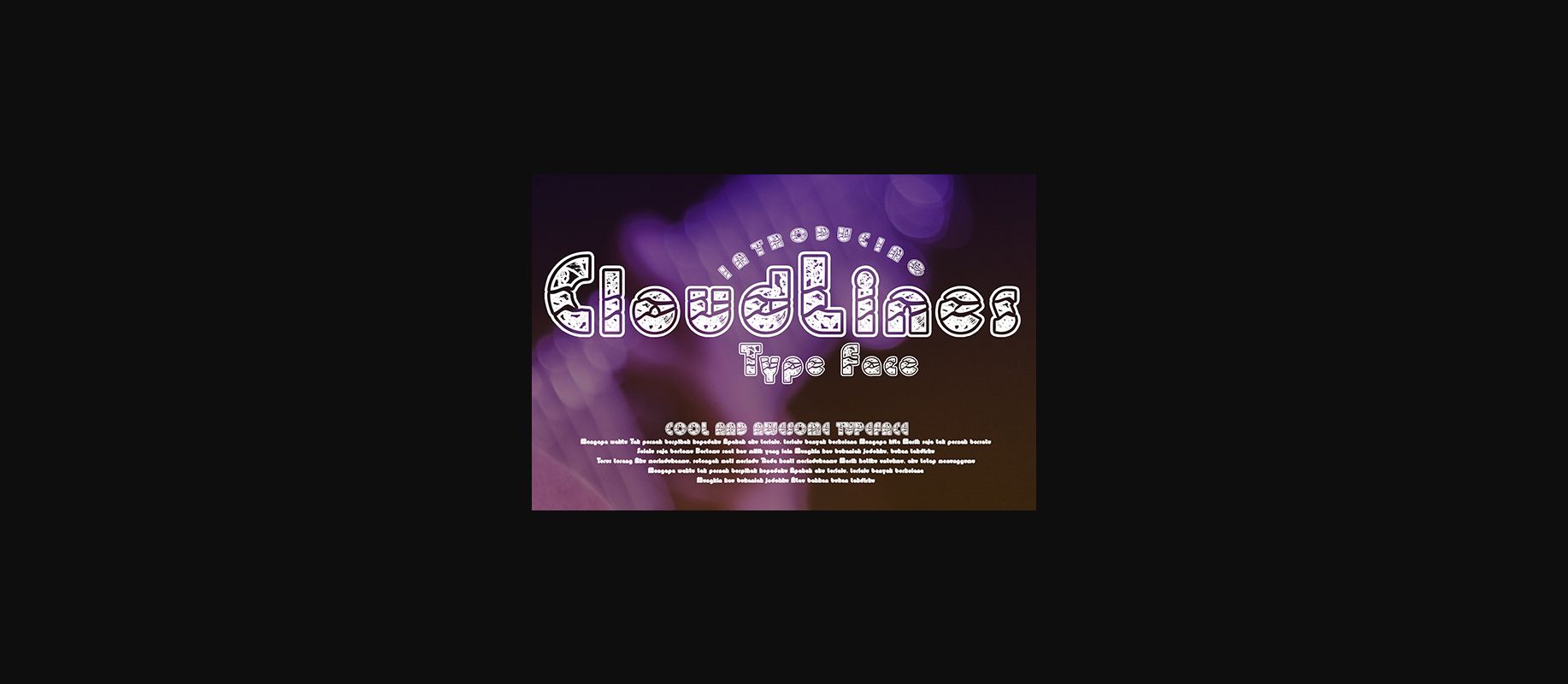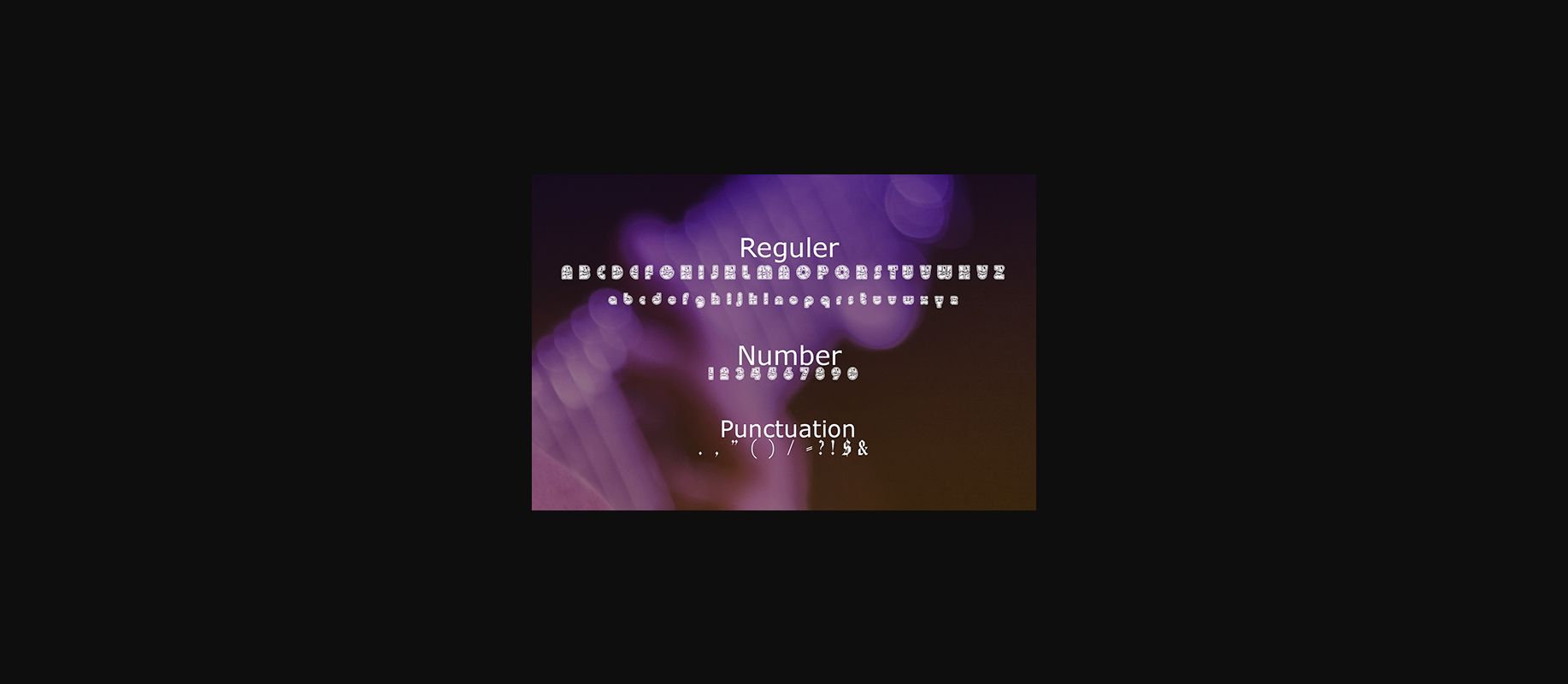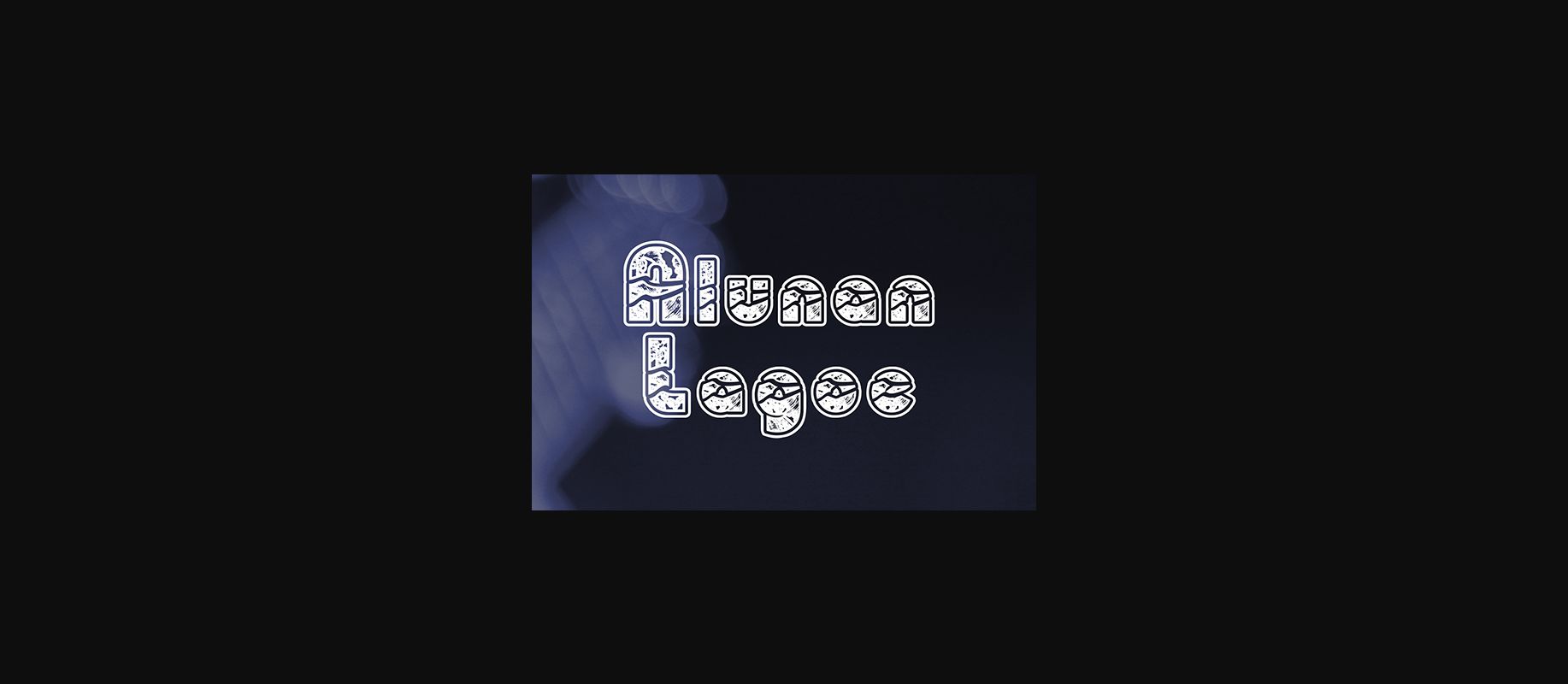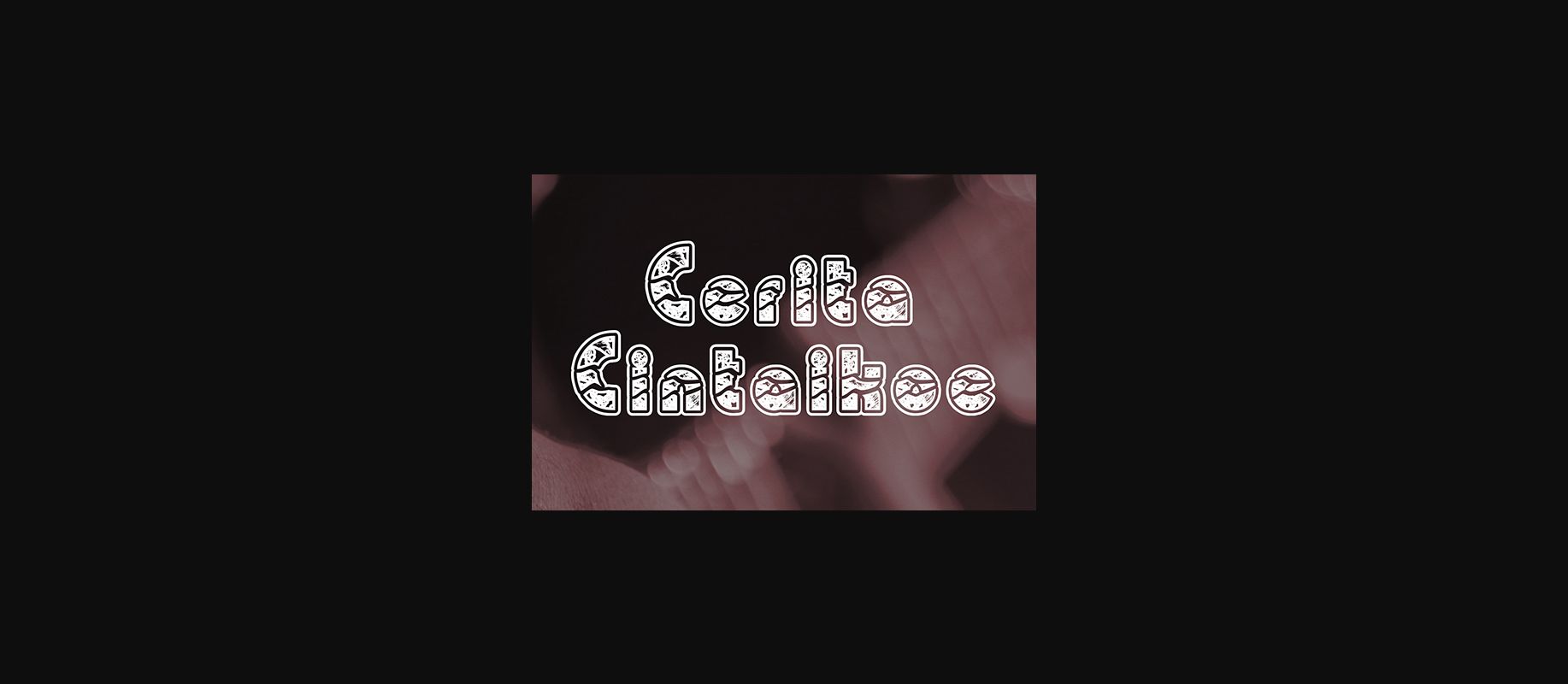
CloudLines Font
About CloudLines Font
CloudLines is a truly unique typeface! It can be used for various purposes such as: headlines, book covers, posters, invitations and much more! Perfect for those who like to be creative!